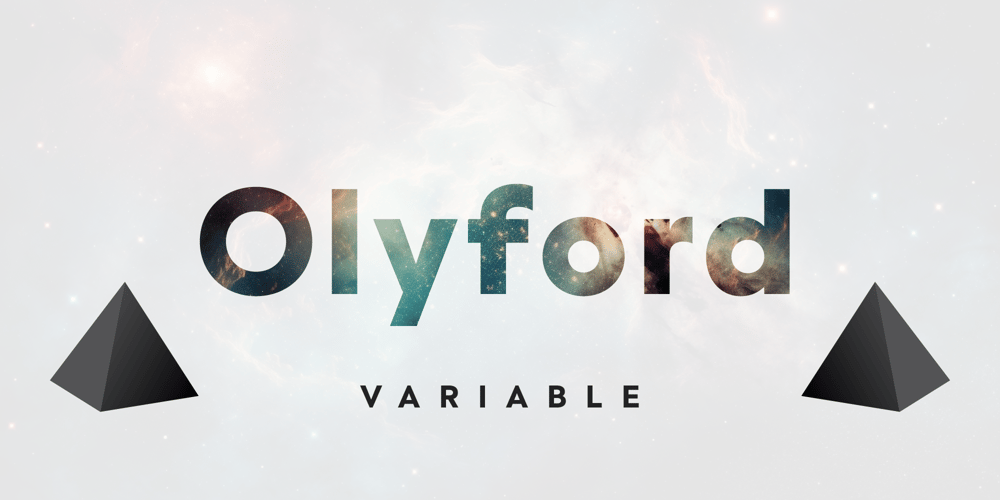
Olyford Variable
Olyford Variable font
Olyford Variable Font Family was designed by Nikolay Savchuk and published by NicolassFonts. Olyford Variable contains 2 styles and family package options. Olyford Variable and Olyford Alt Variable are two dynamic additions to the Olyford font family. They feature a full range of weights from Thin to Heavy, along with matching true italics. Olyford Alt Variable includes alternate designs for G, I, and a, adding even more versatility.OpenType features: Access All Alternates, Stylistic Alternates (Alternative n, m, p, q, r, u), Stylistic Set 1 (Alternative K, k), Stylistic Set 2 (Alternative W), Stylistic Set 3 (Alternative t), Stylistic Set 4 (Alternative w), Stylistic Set 5 (Alternative Ø, ø), Stylistic Set 6 (Alternative 5), Stylistic Set 7 (Alternative ¢, $, €, ¥), Stylistic Set 8 (Alternative Đ, Ħ, Ð, ≠, ∫), Standard Ligatures, Discretionary Ligatures, Proportional Figures, Tabular Figures, Case-Sensitive Forms, Fractions, Kerning, Denominators, Numerators, Scientific Inferiors, Subscript, Superscript, Ordinals, Localized Forms, Contextual Alternates, Capital Spacing.